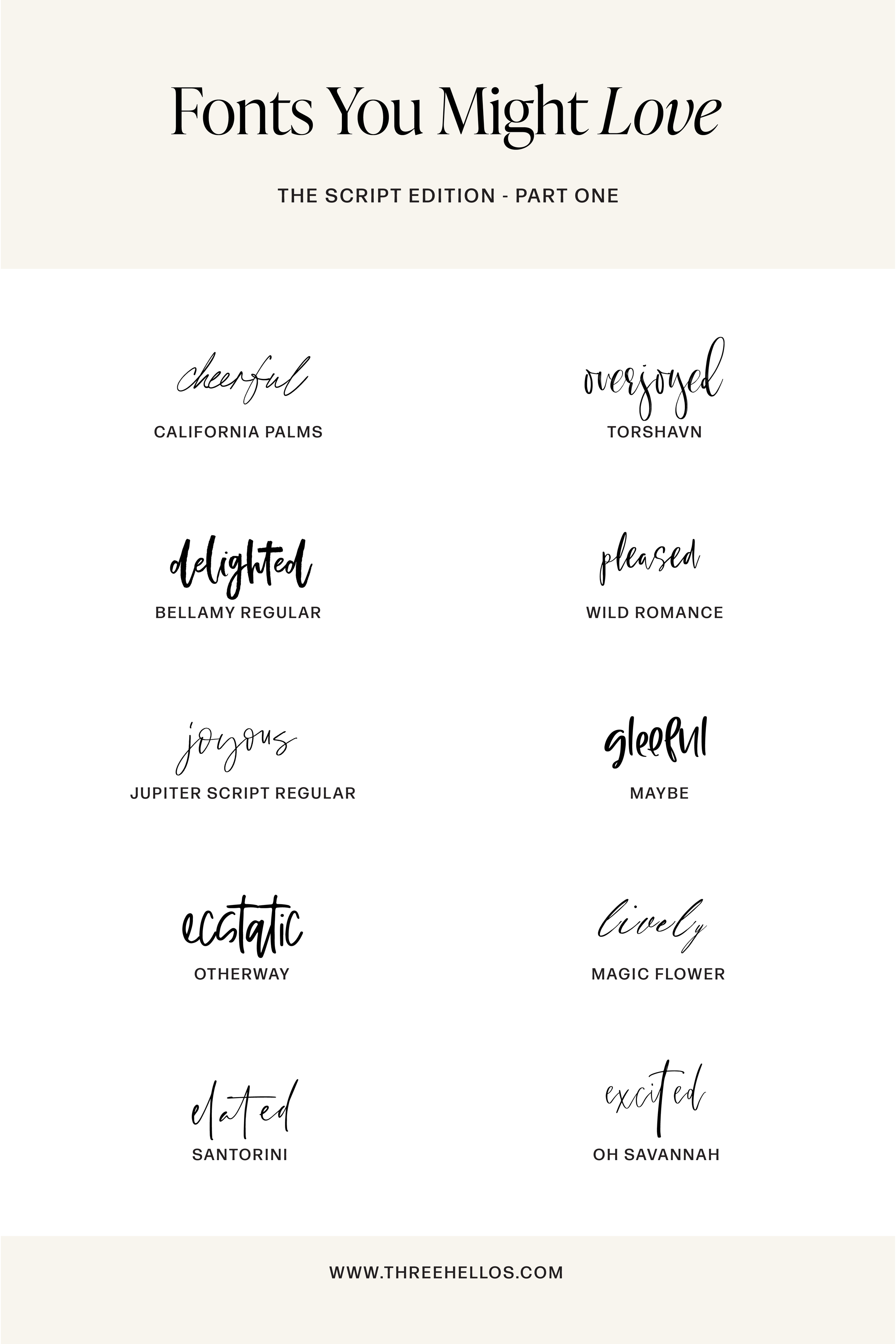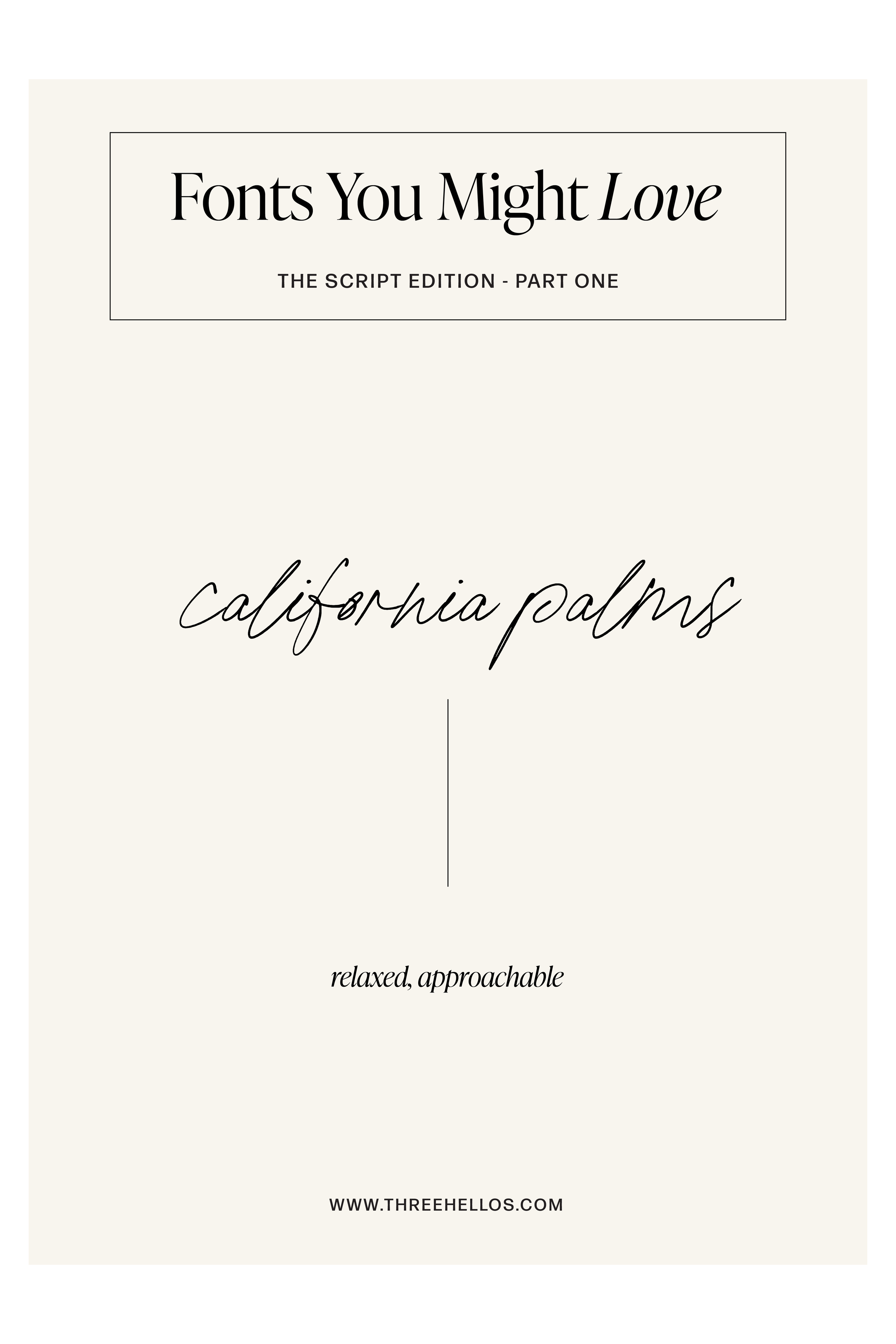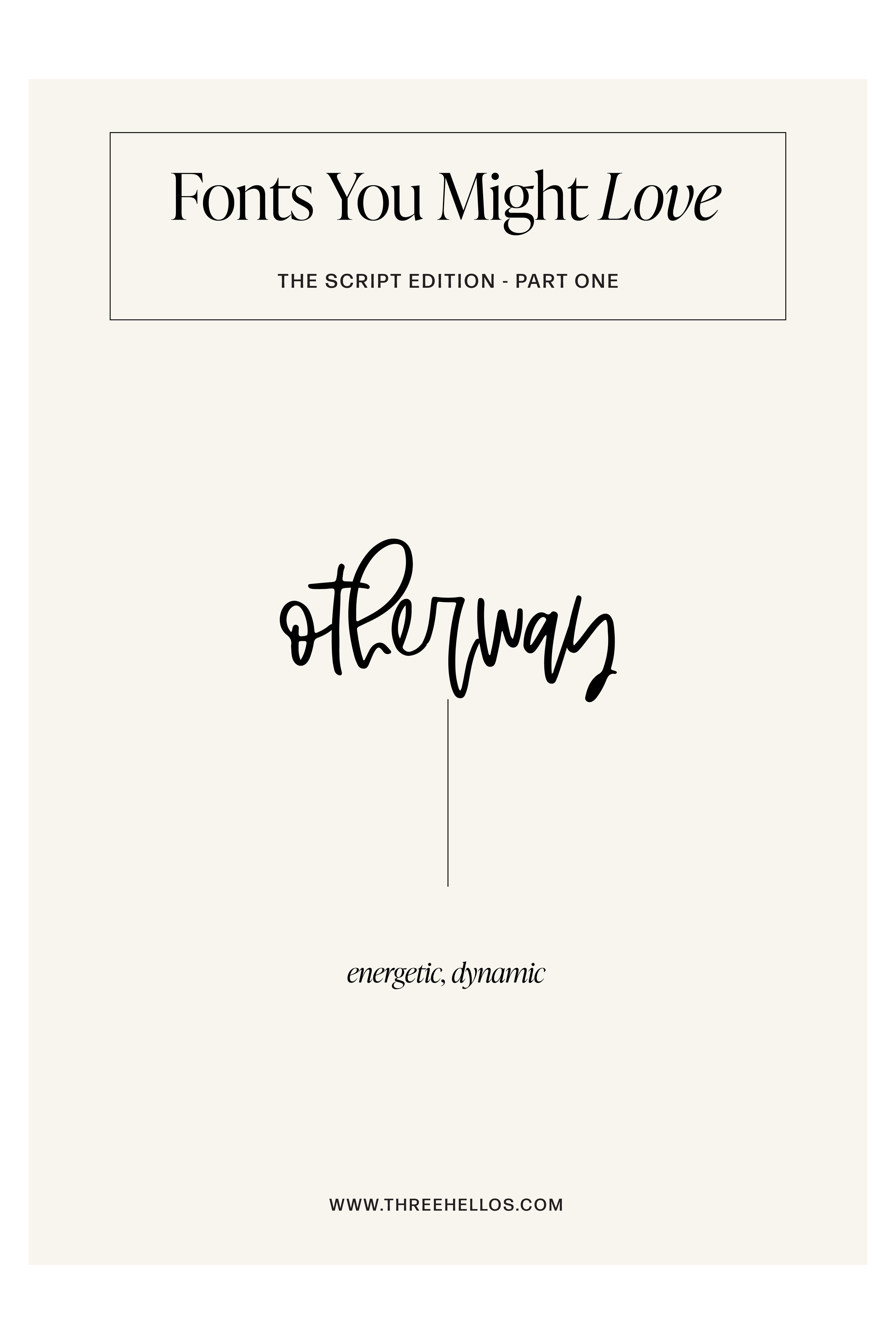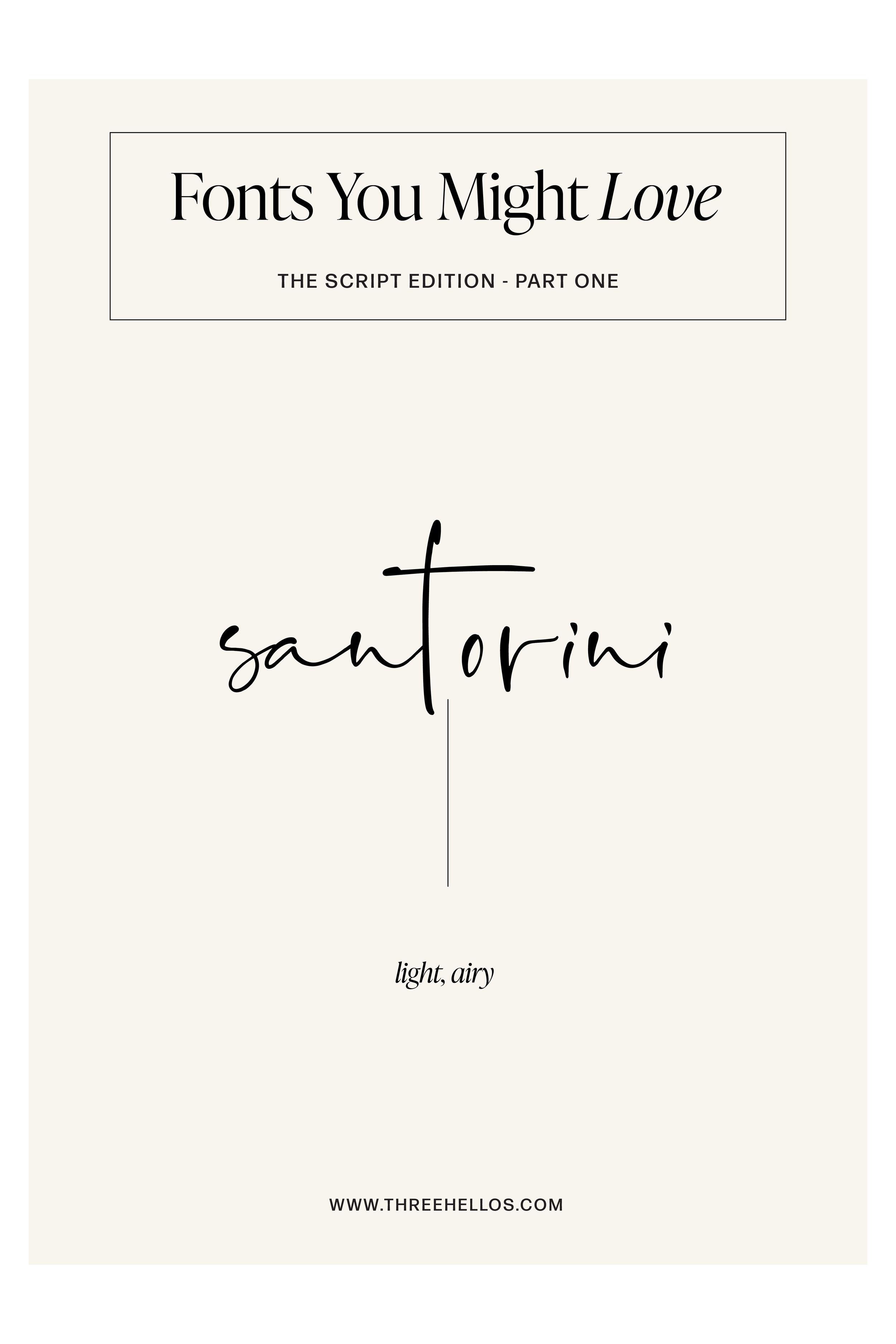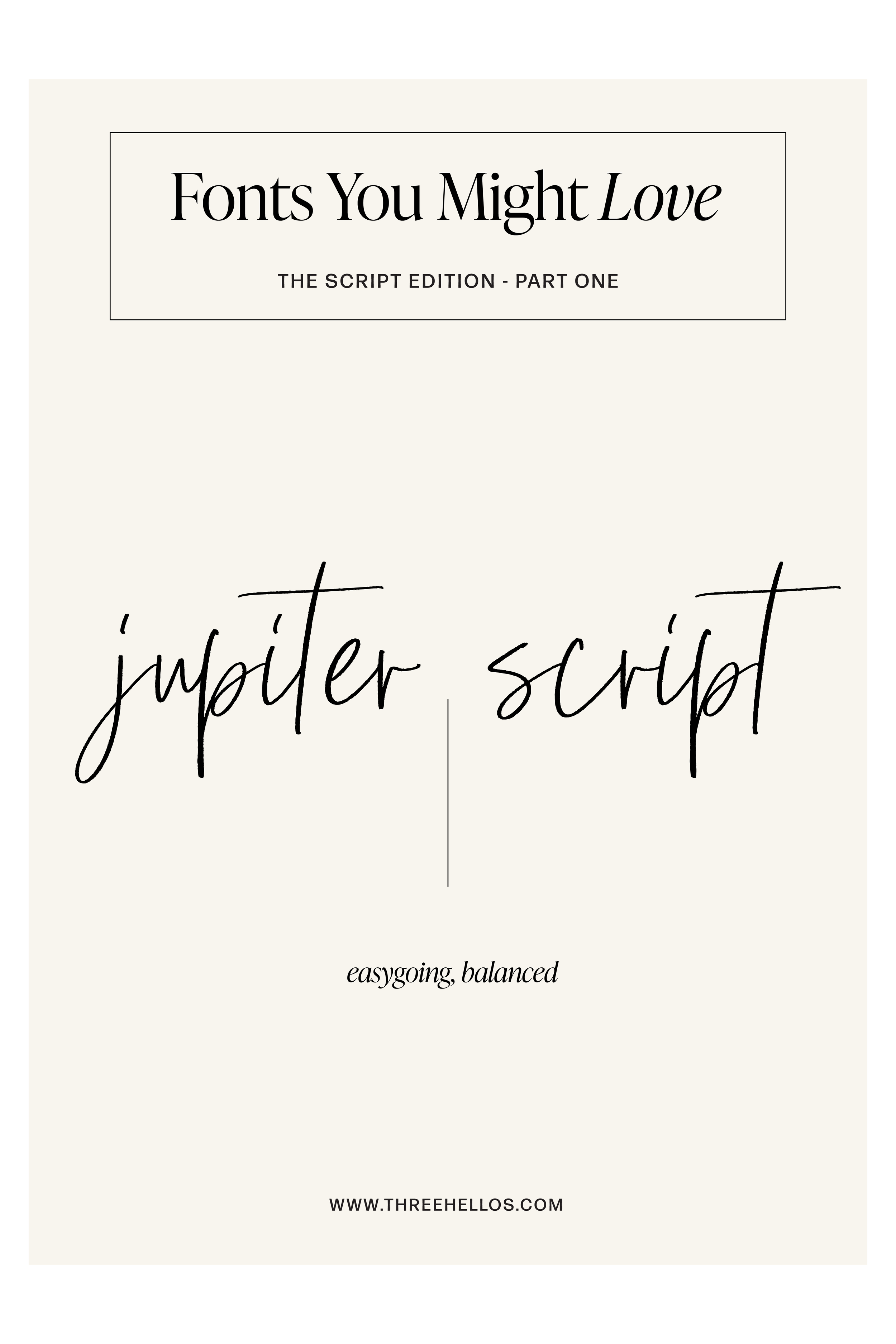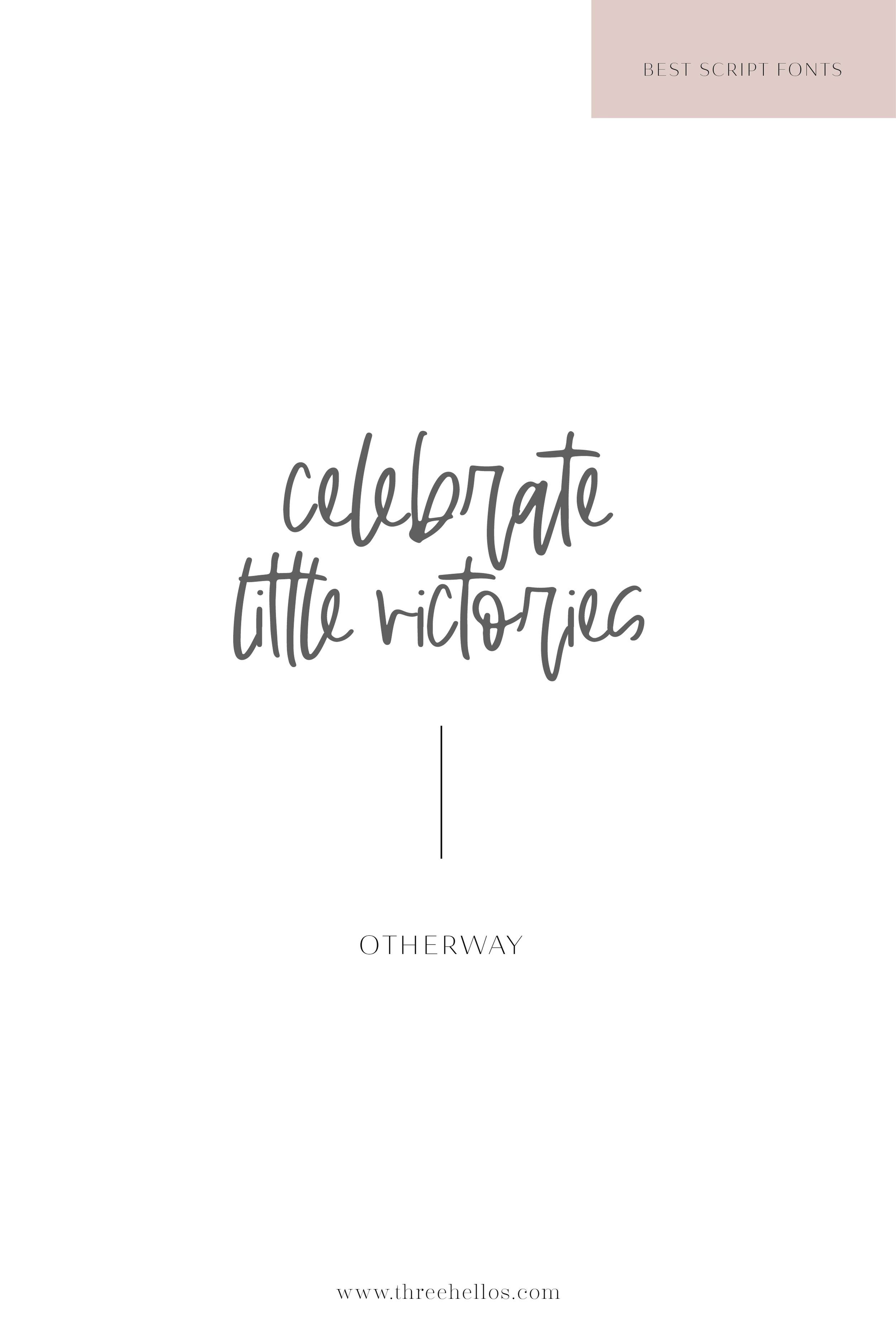
The Best Handwritten Script Fonts for Branding Design
If you love handwritten fonts that capture emotion and energy, this collection was made for you. The Script Edition – Part One celebrates movement, warmth, and personality — fonts that feel like someone’s handwriting on their happiest day.
Each font here carries its own rhythm and charm. From bold brush scripts to light, looping forms, these typefaces bring human connection into your design. They’re expressive without feeling chaotic — perfectly balanced for creative entrepreneurs, boutique brands, and designers who want their typography to feel both personal and polished.
The Collection
California Palms — relaxed & approachable
A breezy handwritten script with effortless curves — perfect for lifestyle branding and organic, easygoing visuals.
Torshavn — tall & romantic
Long strokes and airy movement make this a standout for event, editorial, or artistic projects.
Bellamy Regular — bold & playful
A confident brush script with presence and joy — ideal for logos or social headlines that need energy.
Wild Romance — organic & graceful
Soft and flowing, this script adds sophistication while keeping a natural feel.
Jupiter Script Regular — easygoing & balanced
Casual and modern, this font feels handwritten but composed — perfect for creative brand systems.
Maybe — expressive & modern
A bold, textured script full of life and movement — a great accent for youthful or artistic brands.
Otherway — energetic & dynamic
Strong, brushy, and spontaneous — made for bold social design or product packaging.
Magic Flower — elegant & feminine
Delicate and flowing — ideal for boutique, beauty, and creative studio branding.
Santorini — light & airy
Modern minimalism meets handwriting. Works beautifully in luxury or editorial settings.
Oh Savannah — confident & modern
Tall and clean with refined loops — perfect for brands that want a handwritten look with polish.
When to Use These Fonts
Branding: Pair a script with a clean serif or sans serif for balance.
Web Design: Great for headers, hero text, or signature-style taglines.
Social Media: Use sparingly for emphasis — to highlight emotion or warmth.
The Feel
Keywords: Expressive, Warm, Personal, Refined, Joyful
These fonts are about feeling — connection, movement, and sincerity. They’re the visual equivalent of handwriting a note that makes someone smile.
Inspiration
Think handwritten thank-you cards, packaging notes, or café signage that makes you pause. The Script Edition – Part One is joyful typography made modern.